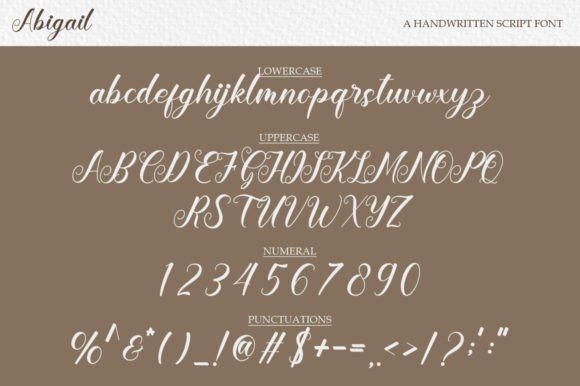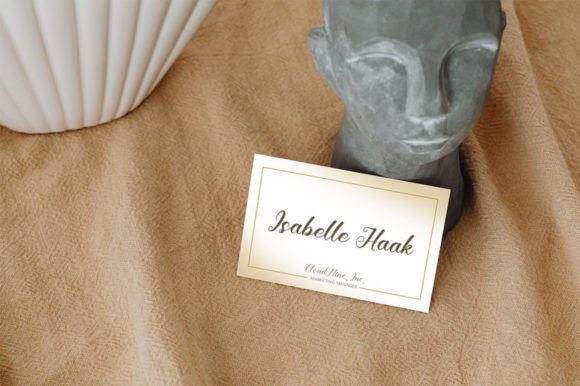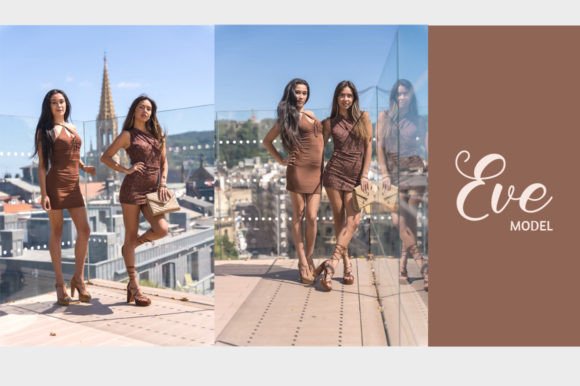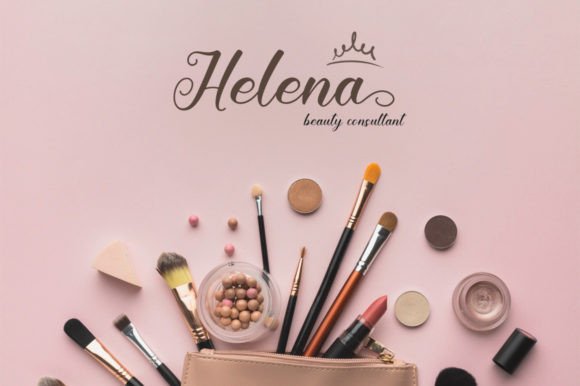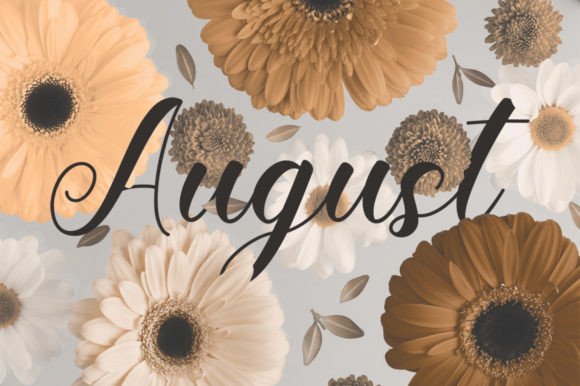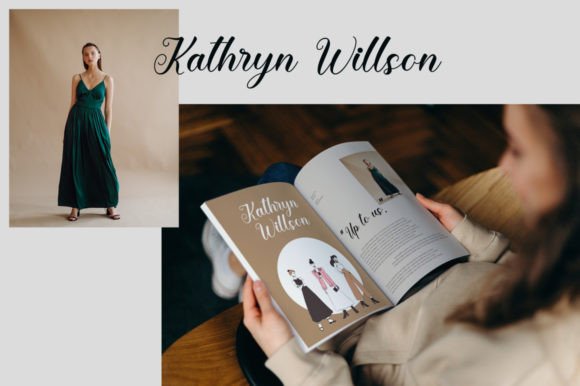
The Timeless Charm of Abigail Font: A Designer’s Delight
I still remember the time I was working on a branding project for a small boutique, and I was struggling to find the perfect font that would capture the essence of their elegant and sophisticated brand. The client had a clear vision of what they wanted, but I was having a hard time finding a font that would match their expectations. That’s when I stumbled upon Abigail Font, a lovely and timeless handwritten font that instantly caught my attention. In this article, I’ll share my experience with Abigail Font, its features, and how to make the most of it in your designs.
Abigail Font: A Personal Review
Abigail Font is a beautiful, handwritten font that has become a staple in my design toolkit. Here’s what I love about it:
- ✨ Timeless and elegant: Abigail Font has a classic, sophisticated feel to it that makes it perfect for branding, logos, and quotes.
- ✅ PUA encoded: The font is PUA encoded, which means you can access all the glyphs and swashes with ease, giving you endless creative possibilities.
- 💫 Versatile: Abigail Font can be used for a wide range of design projects, from logos and branding to social media graphics and quotes.
While Abigail Font is an excellent choice for many design projects, it’s not without its quirks. Here are a few things to keep in mind:
- ⚠️ Limited use in body text: Due to its elegant and cursive nature, Abigail Font may not be the best choice for long body text. It’s better suited for headings, titles, and short paragraphs.
- 🤔 Requires some exploration: With so many glyphs and swashes available, it may take some time to get familiar with the font and explore all its features.
The Story Behind Abigail Font
Abigail Font was designed with the intention of creating a timeless and elegant handwritten font that would be perfect for branding, logos, and quotes. The designer aimed to create a font that would be versatile and easy to use, with a wide range of glyphs and swashes to choose from. The result is a beautiful and sophisticated font that’s perfect for designers, crafters, and creative hobbyists.
- Q: Is Abigail Font suitable for body text?
- A: No, Abigail Font is better suited for headings, titles, and short paragraphs. It’s not recommended for long body text.